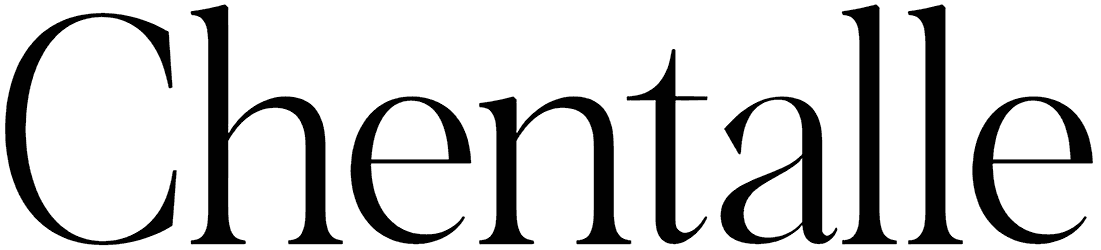
Chentalle Font
You probably have worked with so many other serif fonts so far, but none of them give off the same fantasy vibes as Chentalle. If you could just take your time to admire all the elegance this fancy font has to offer, you’d need a lifetime.
Its chic elements land well on any luxury design of yours, including flyers for advertising a banquet hall, a jewelry design service, a loyal office, and other formal yet high-end projects like that.